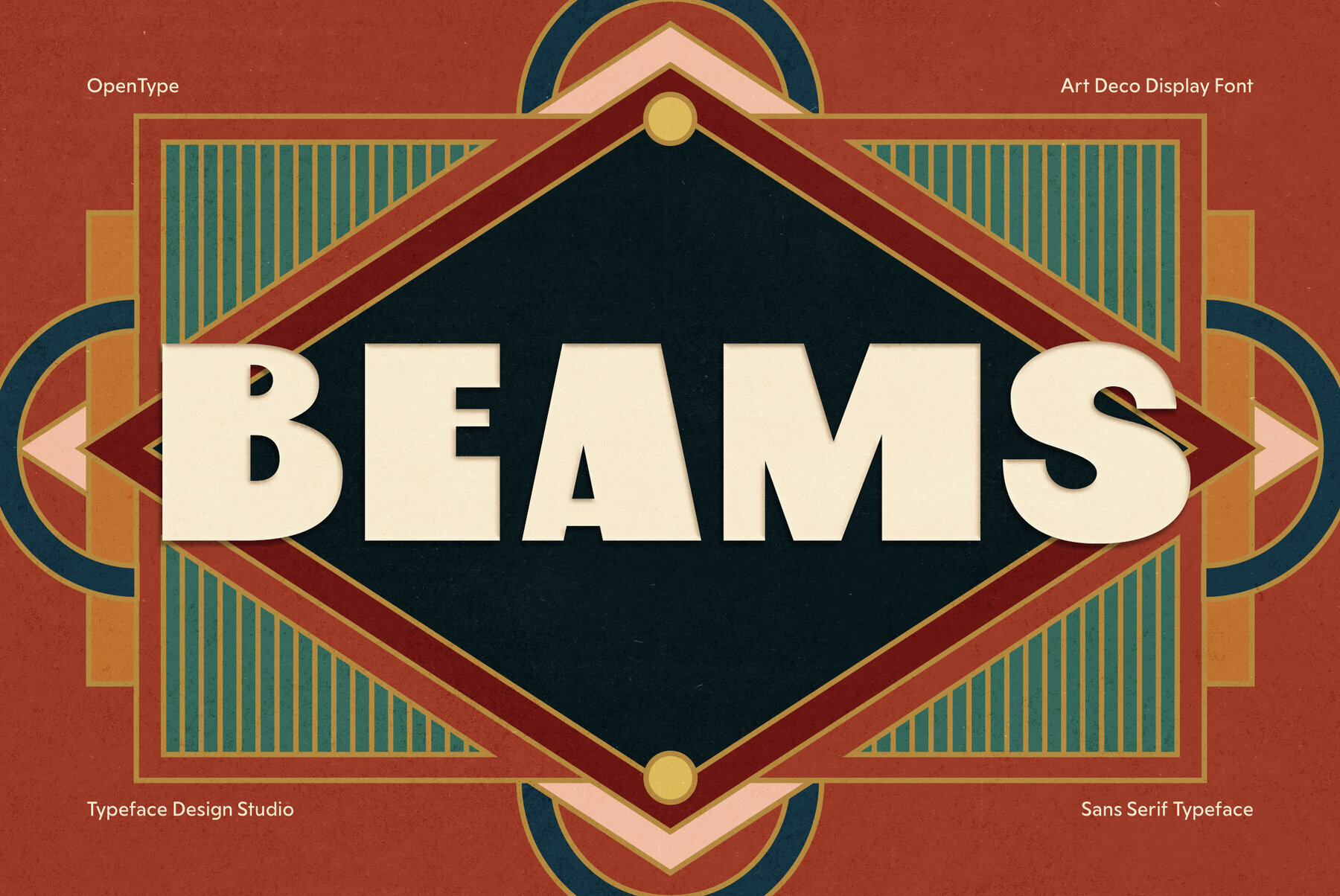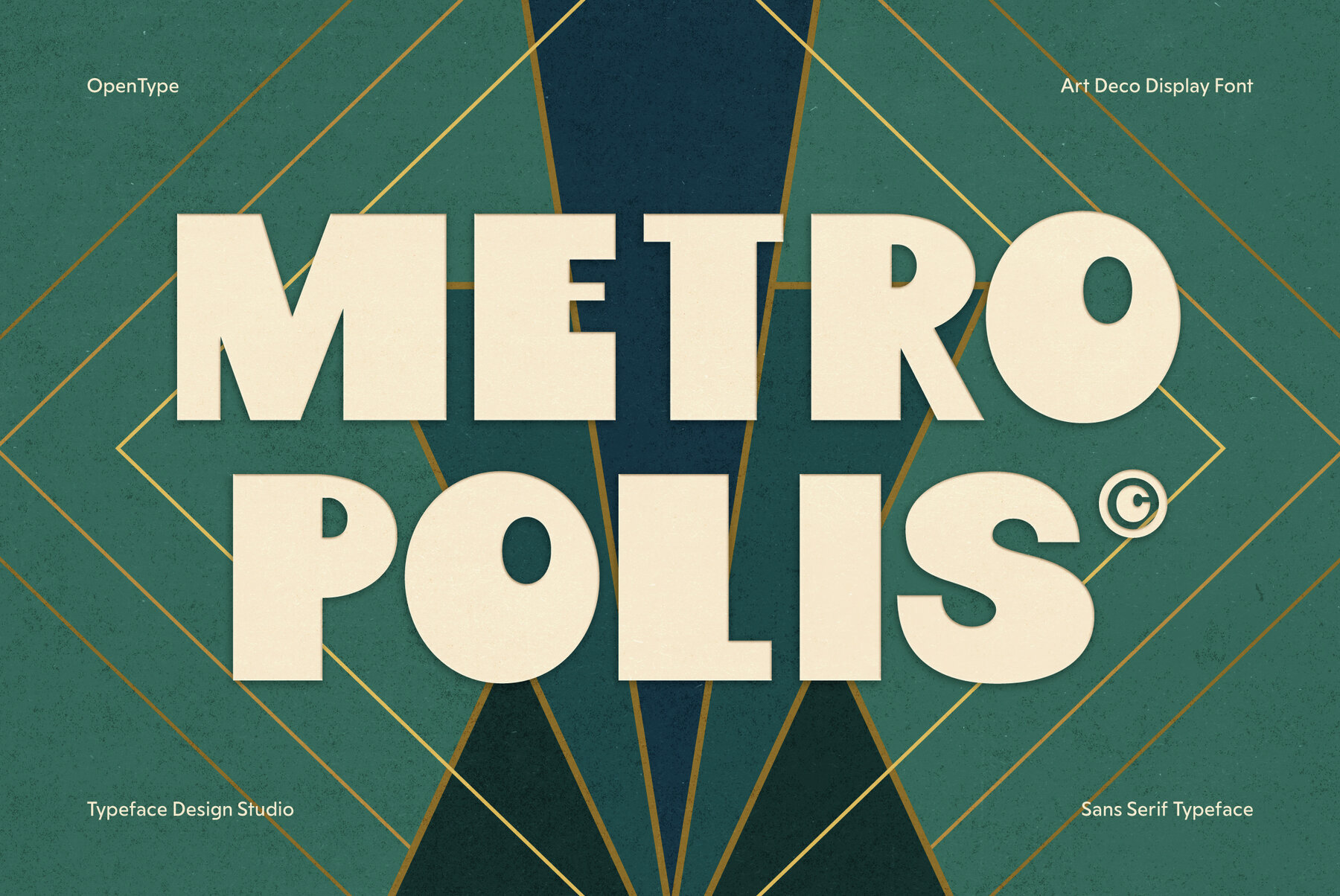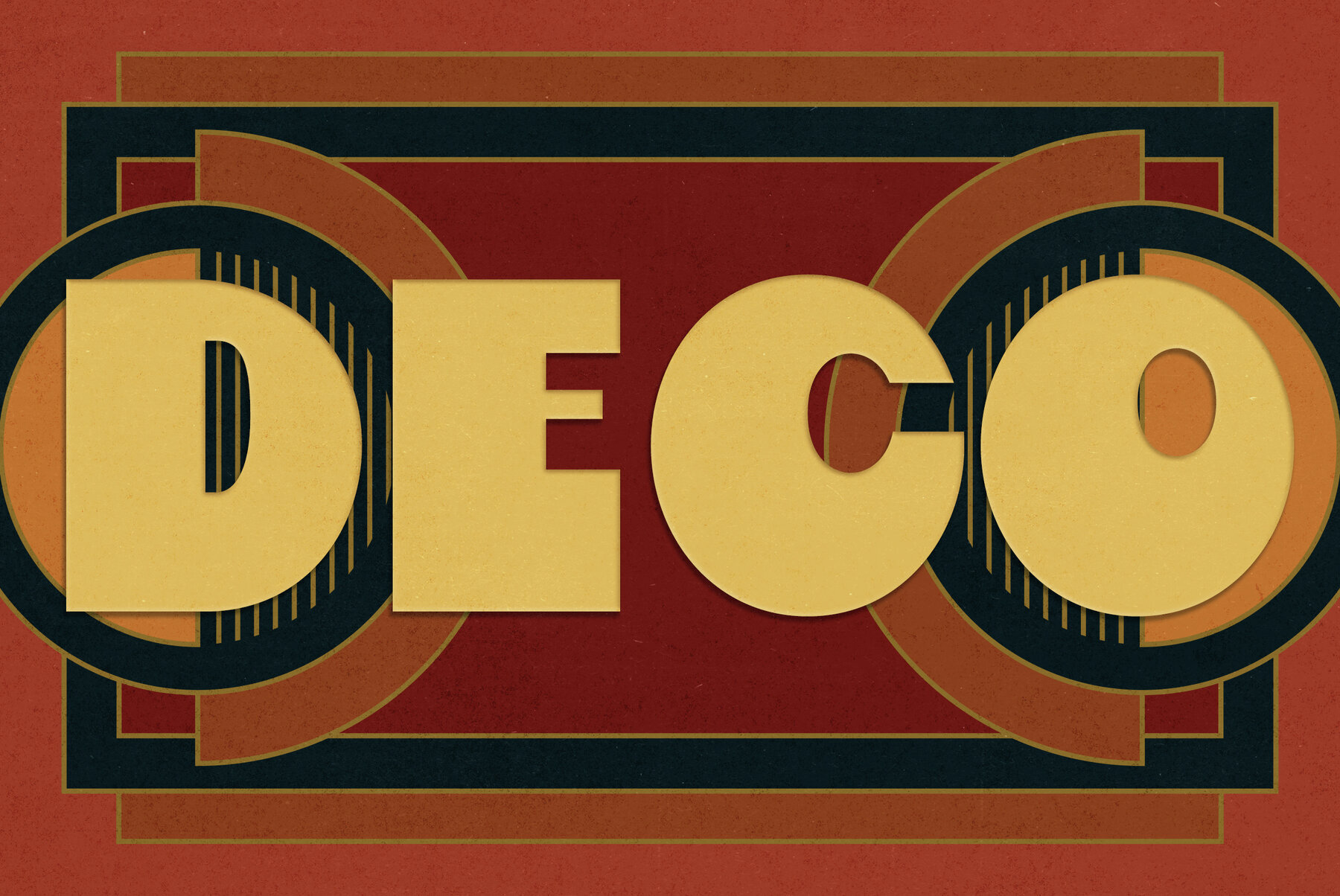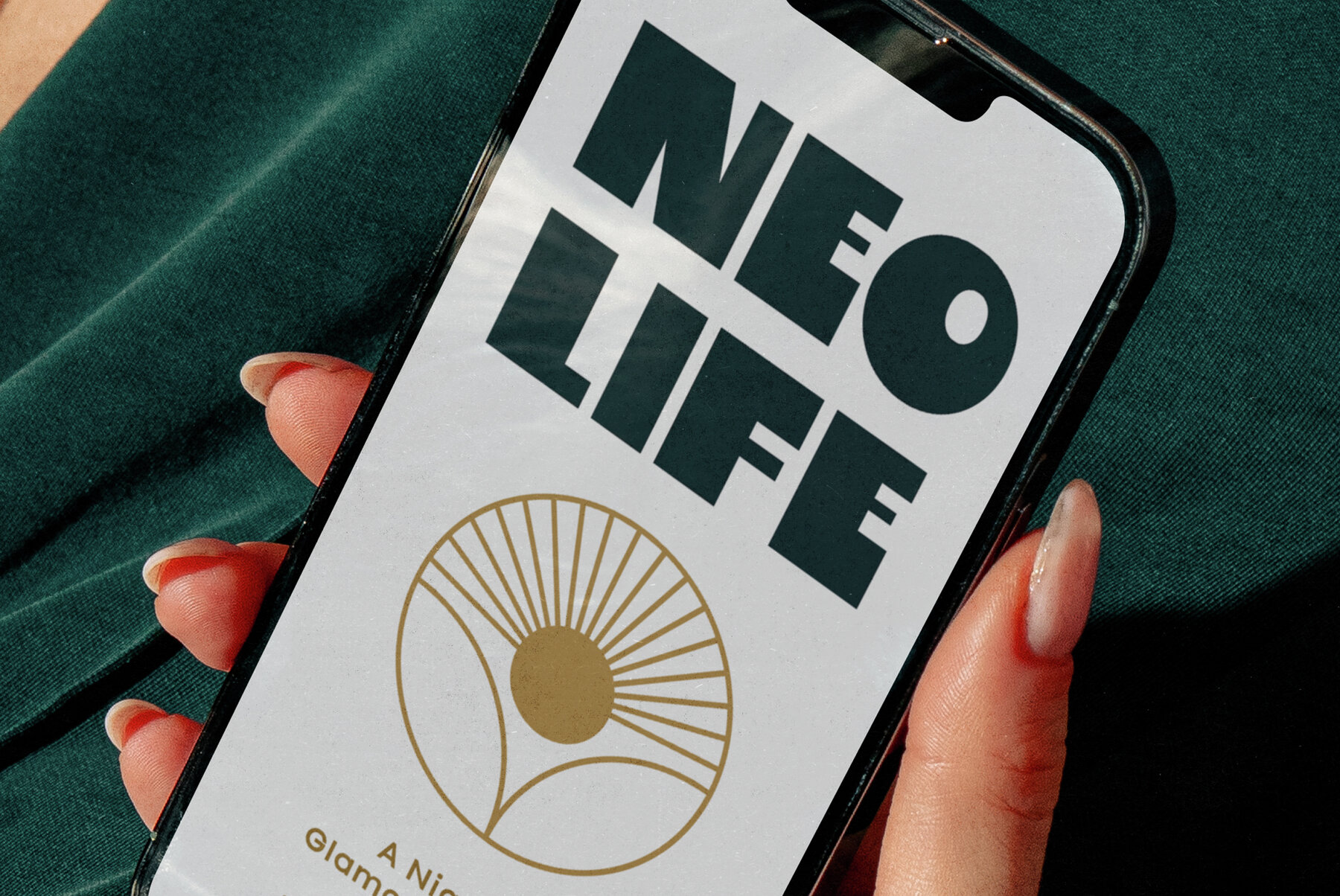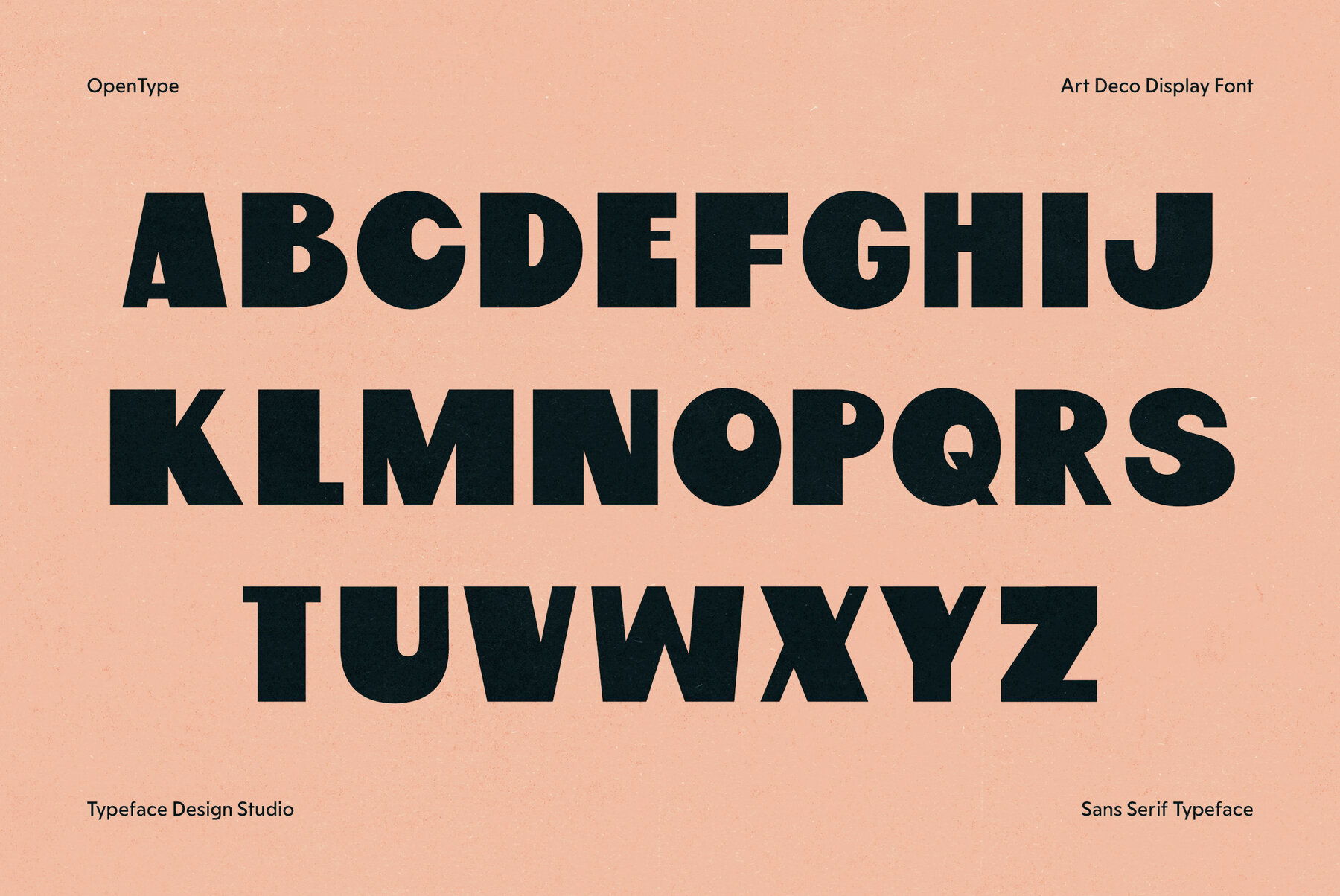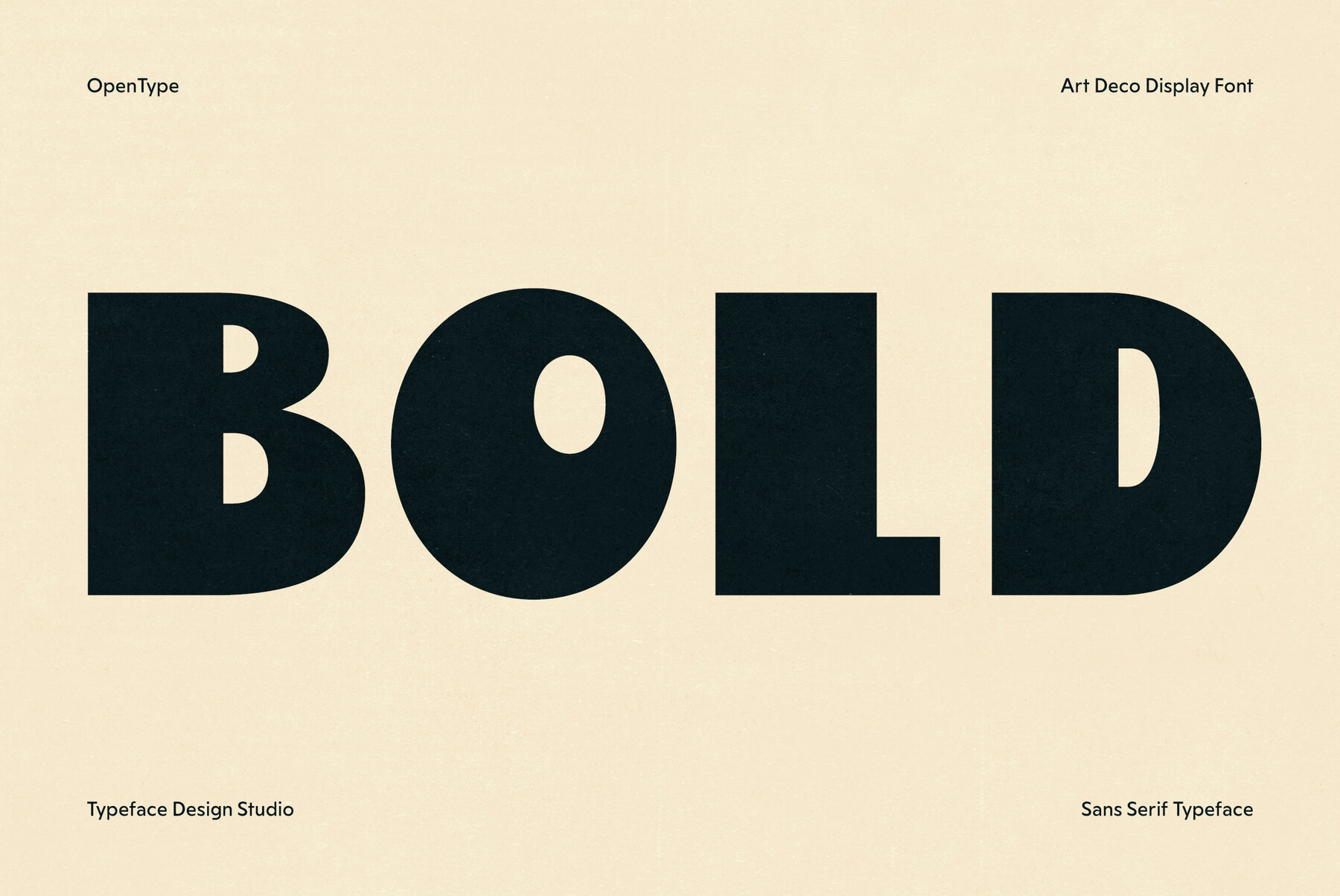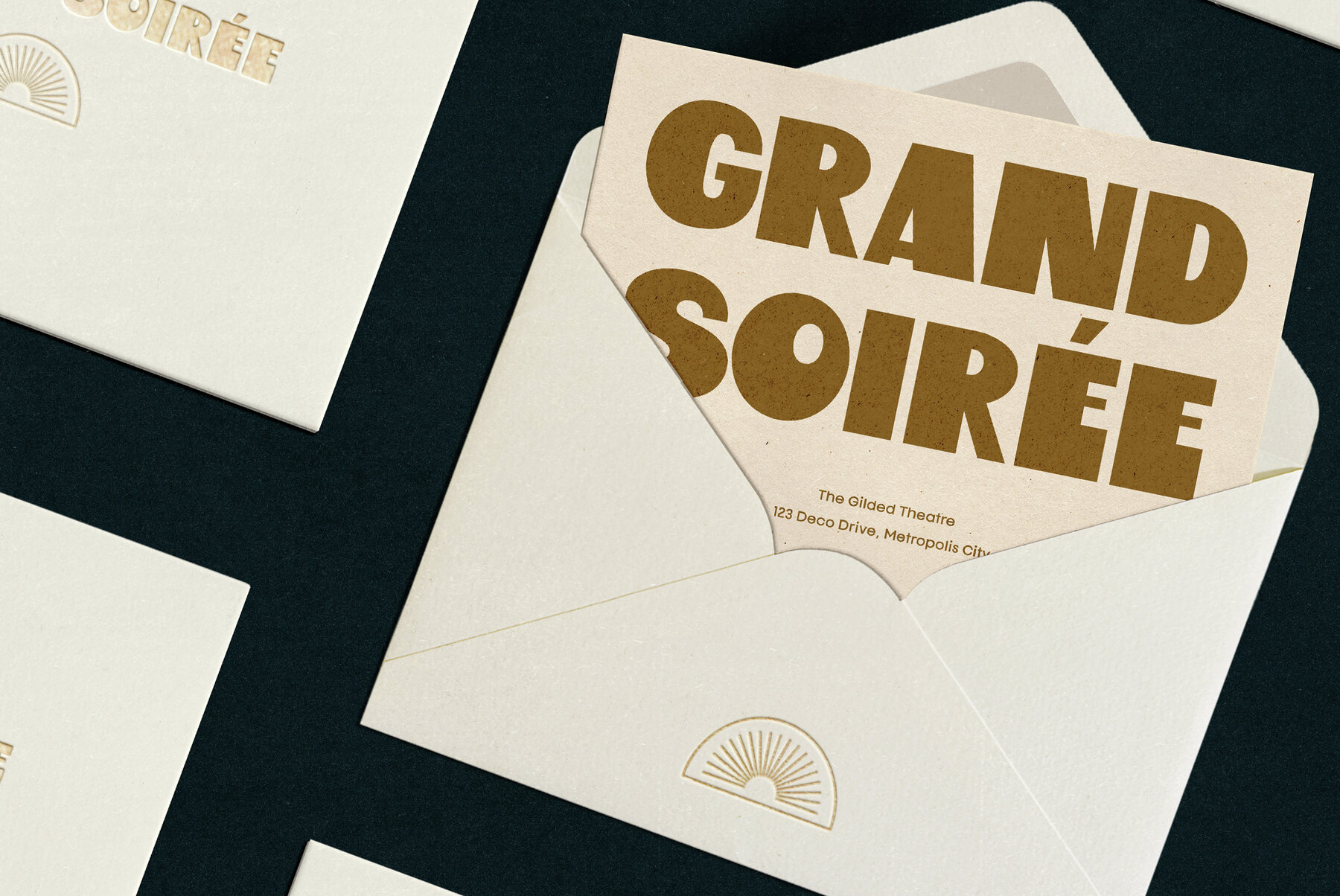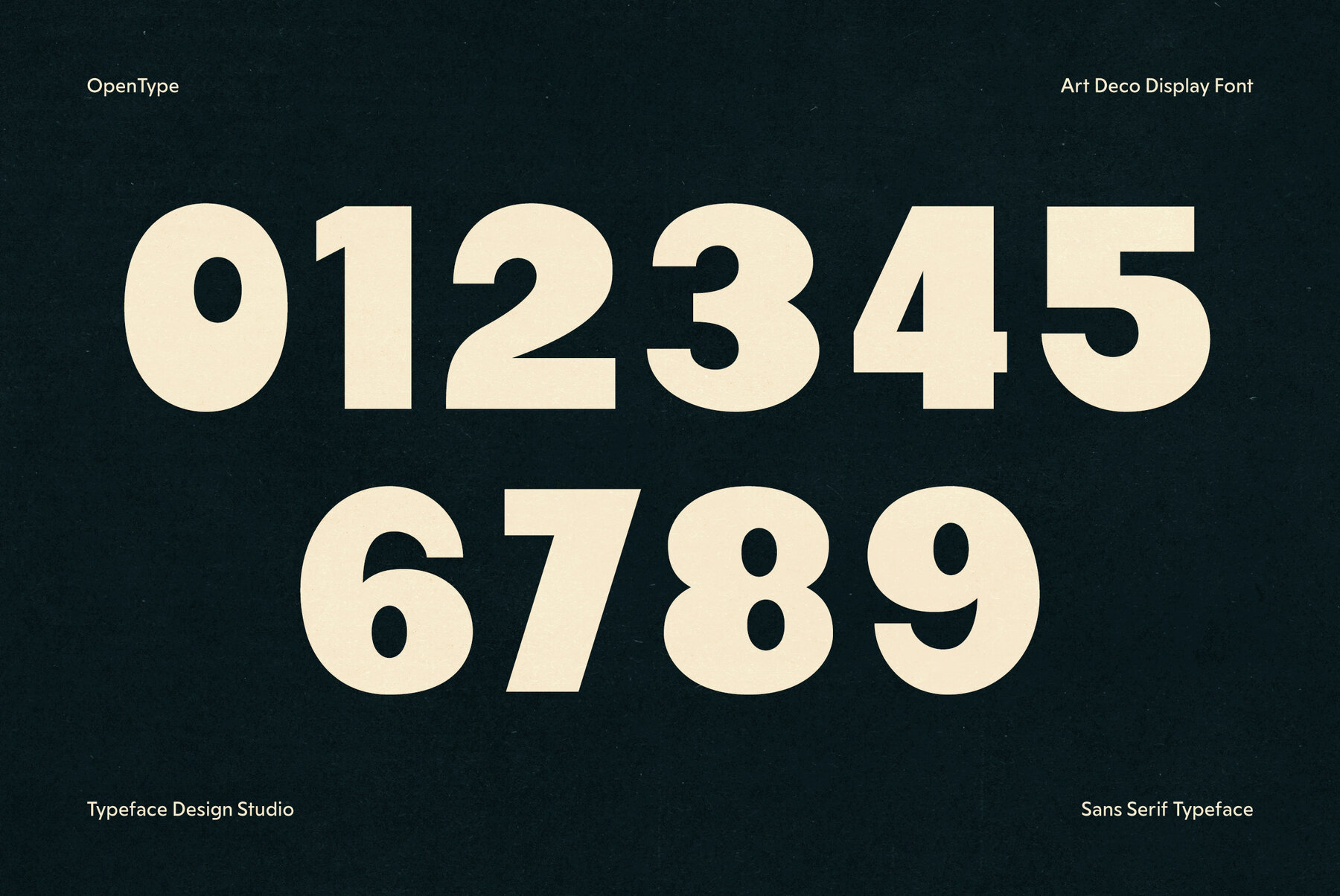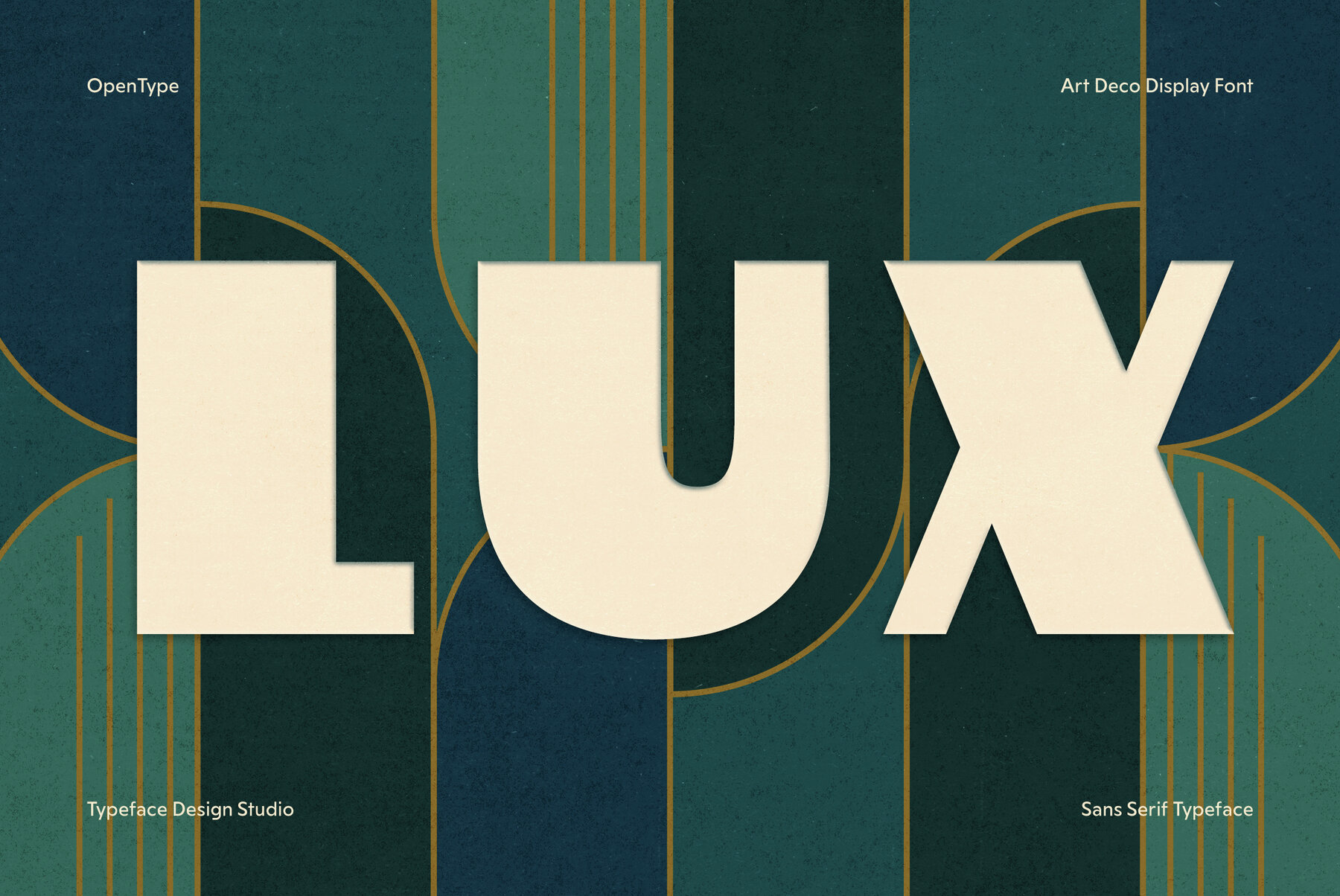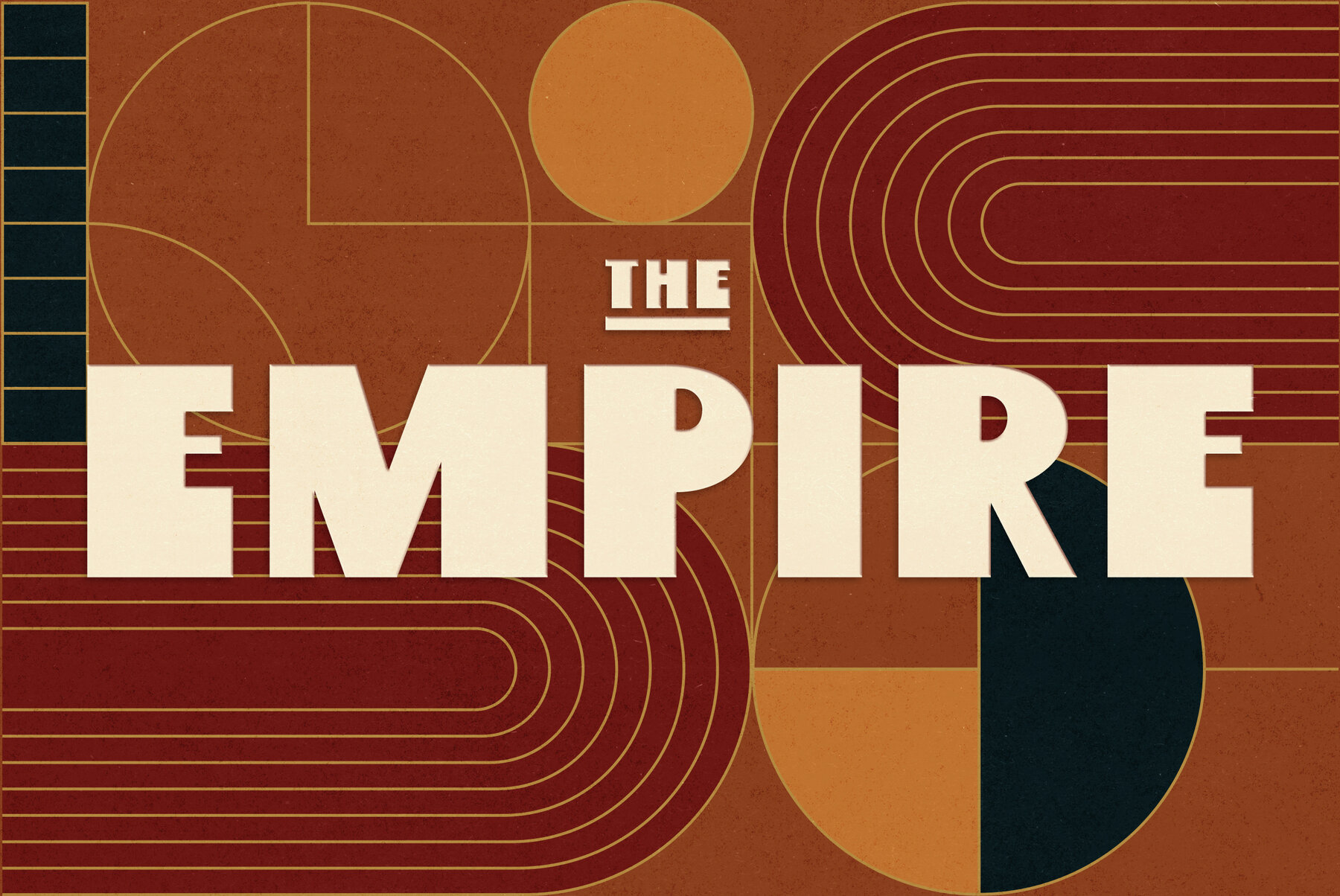
Beams Font
Beams
Beams is a distinct display font inspired by the bold aesthetics of street signs, shop signs, gig posters, and album covers. With its wide style, it offers versatility for a multitude of creative projects, injecting a unique touch into your designs. This font's bold and playful nature ensures any project captures attention, making it ideal for headlines, branding, and packaging. Designed to be both visually striking and functional, Beams introduces an element of fun and ease to your creations. It's perfect for projects that demand a bold, impactful appearance without compromising readability. Whether crafting marketing materials, event posters, or artistic designs, this font strikes the perfect balance between style and substance. Additional products used for slideshow images:Beams: A Versatile Display Font Inspired by Signage